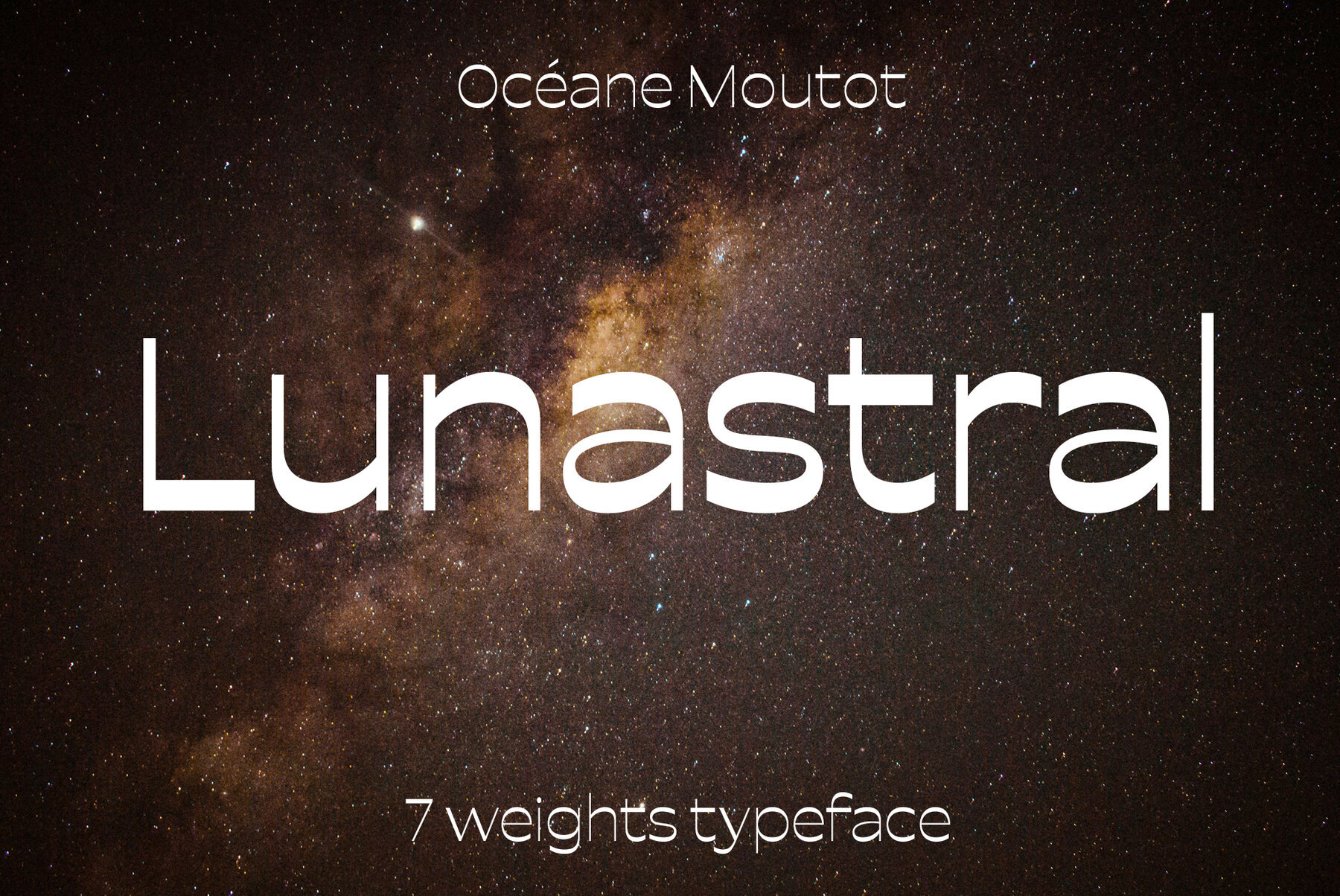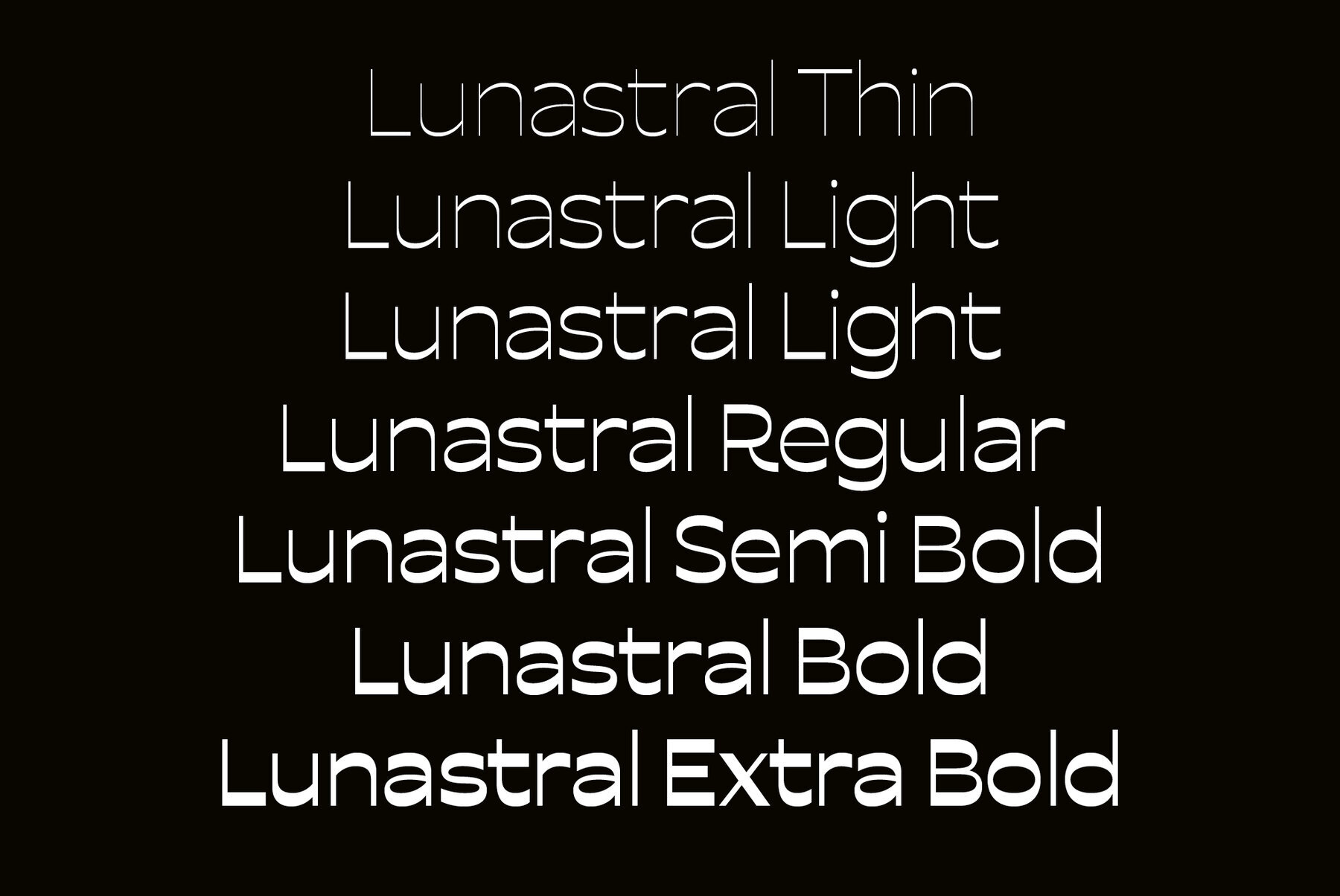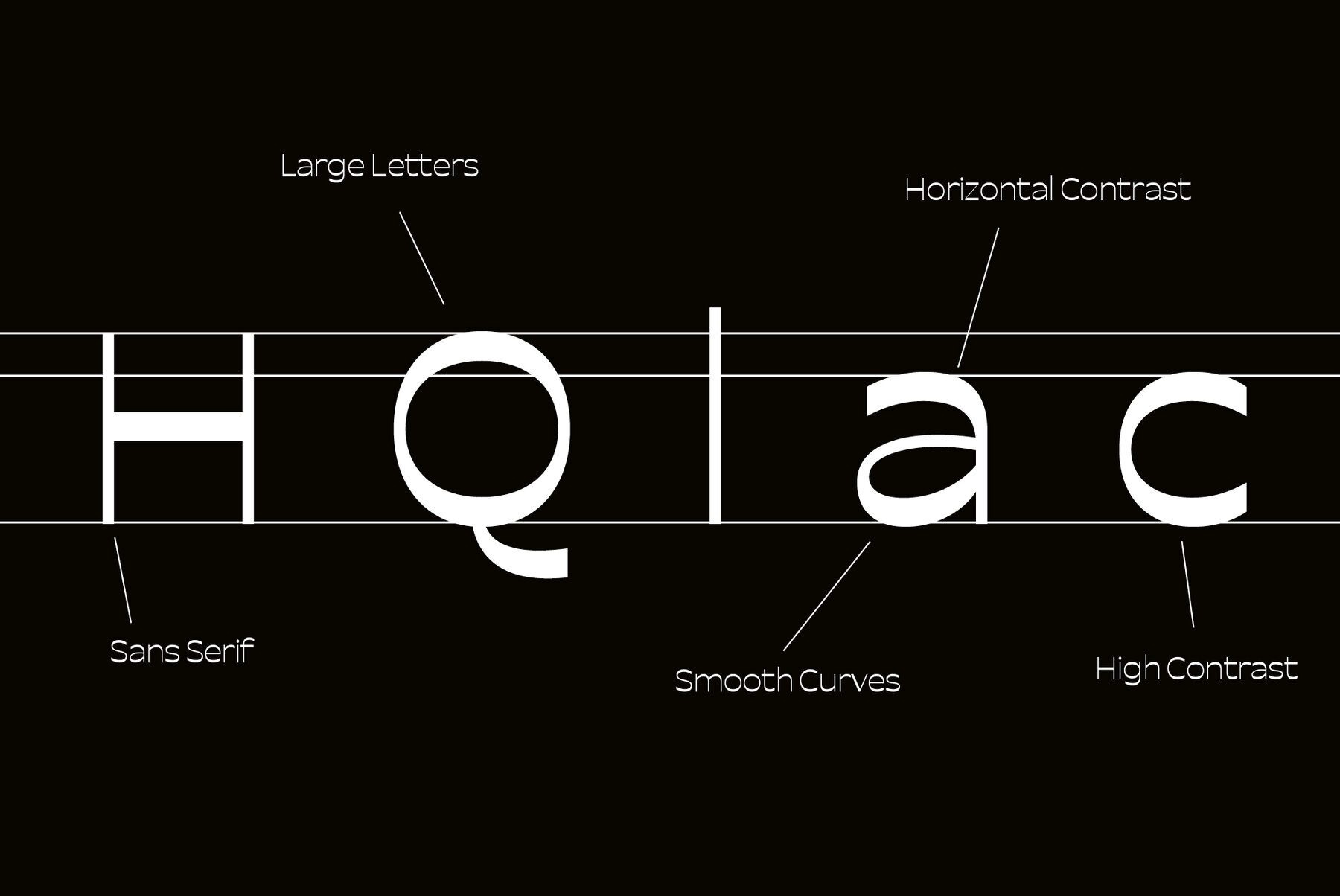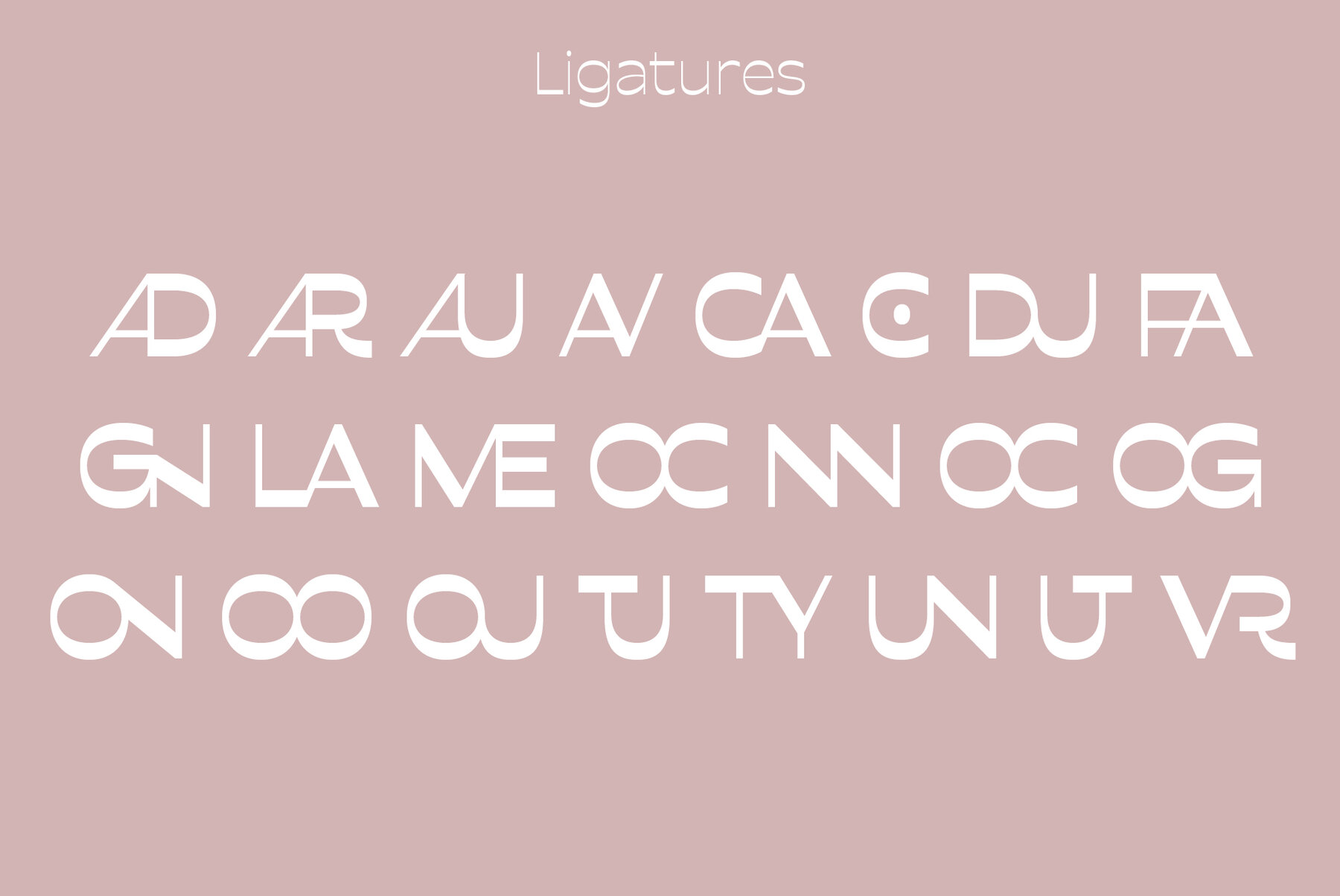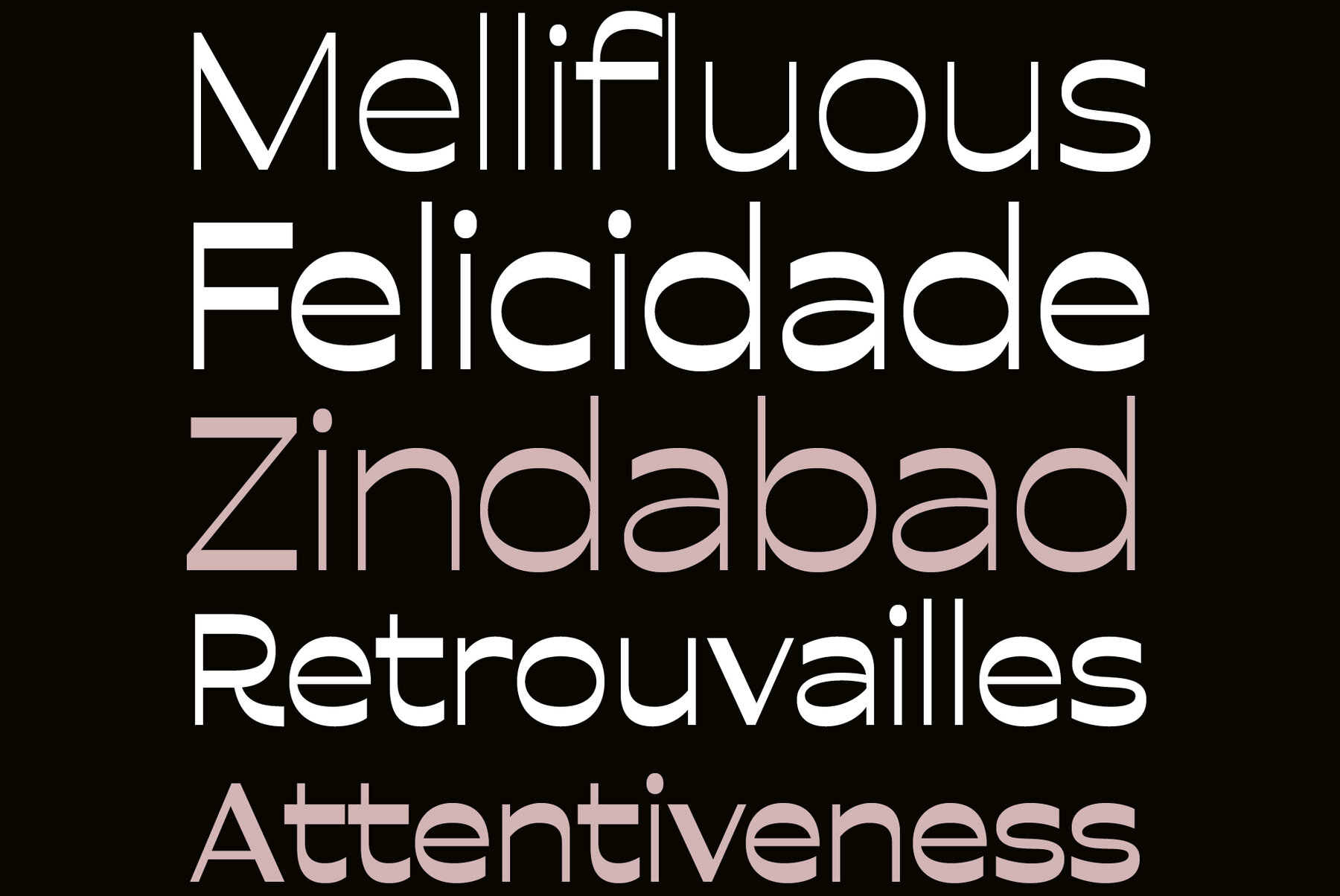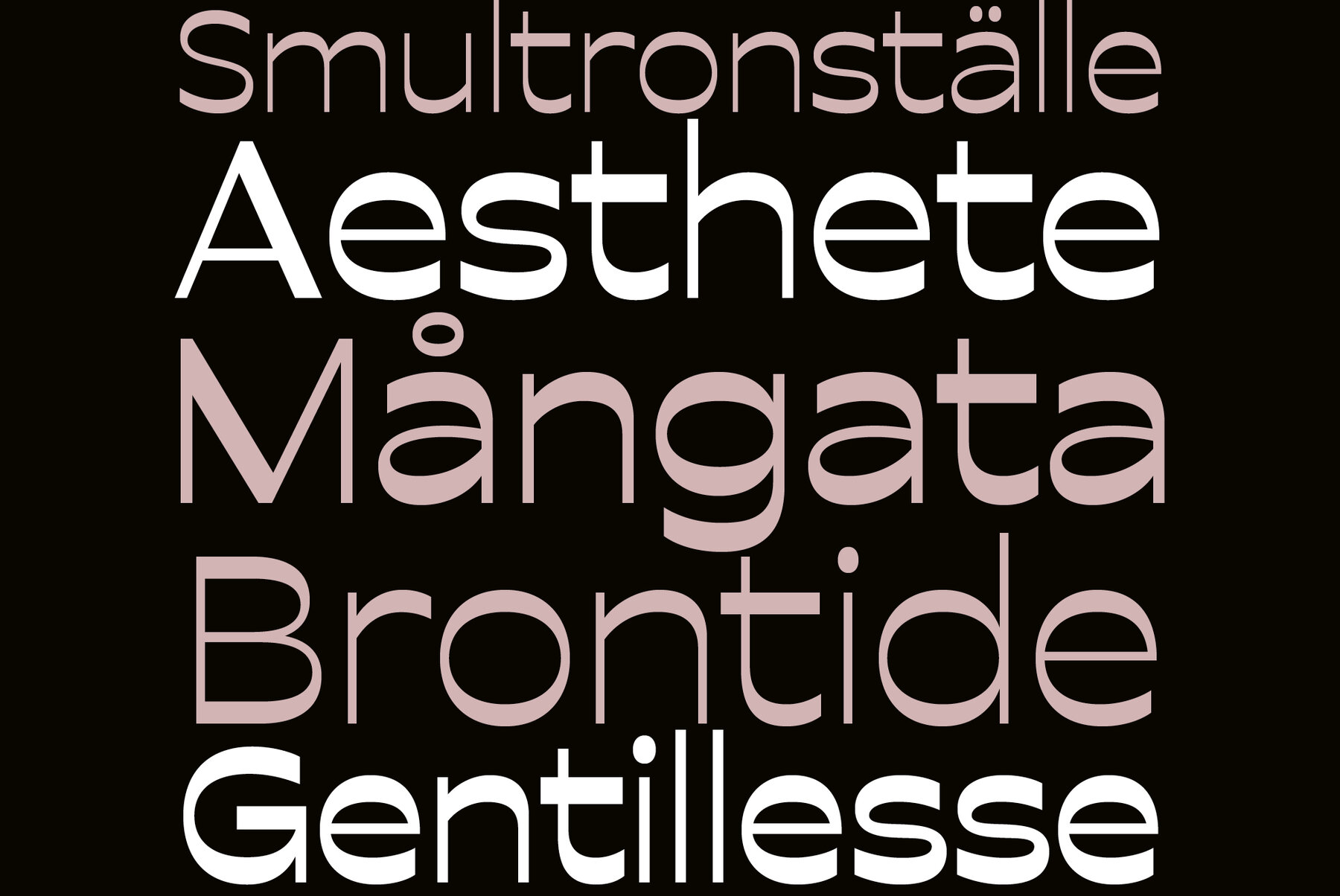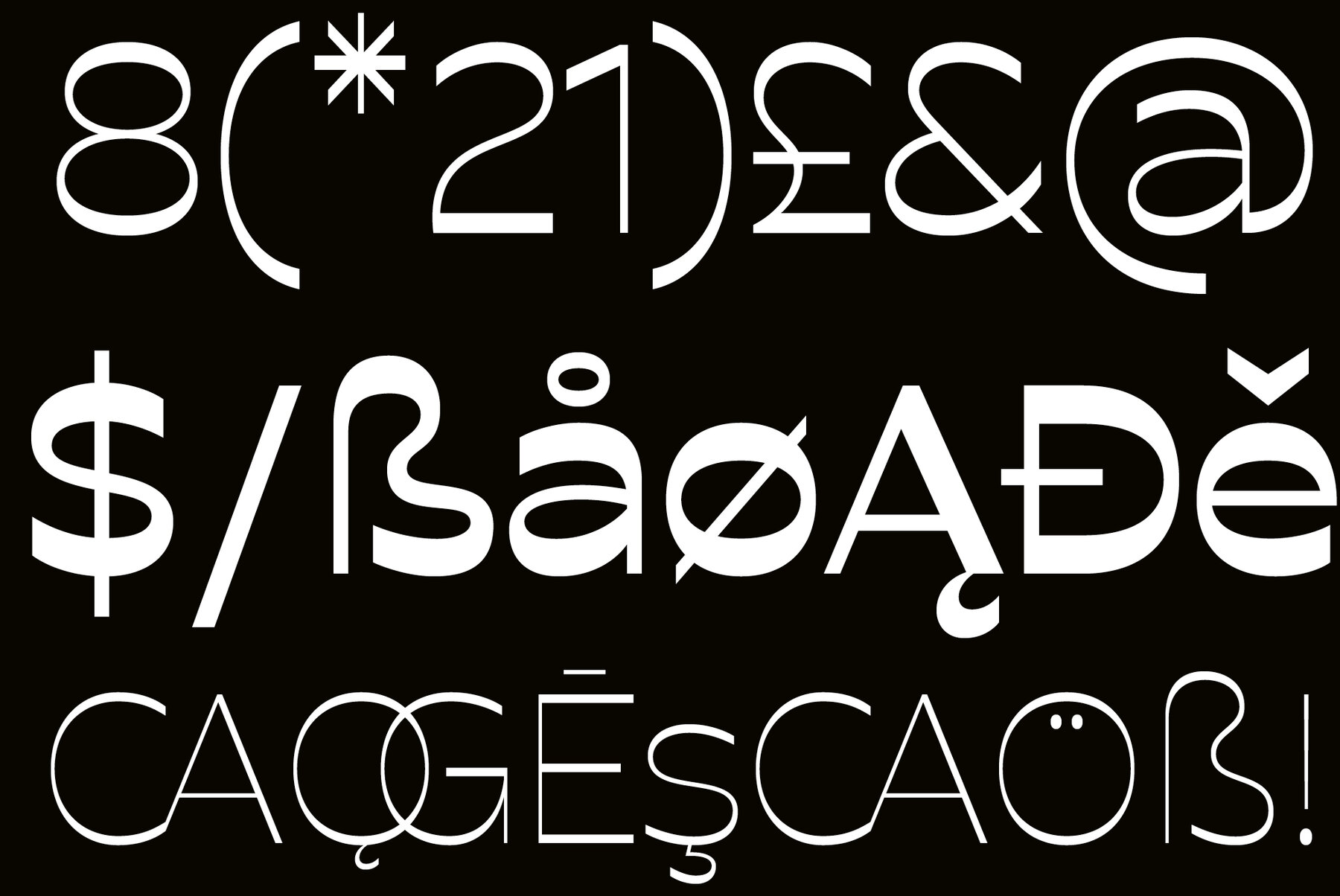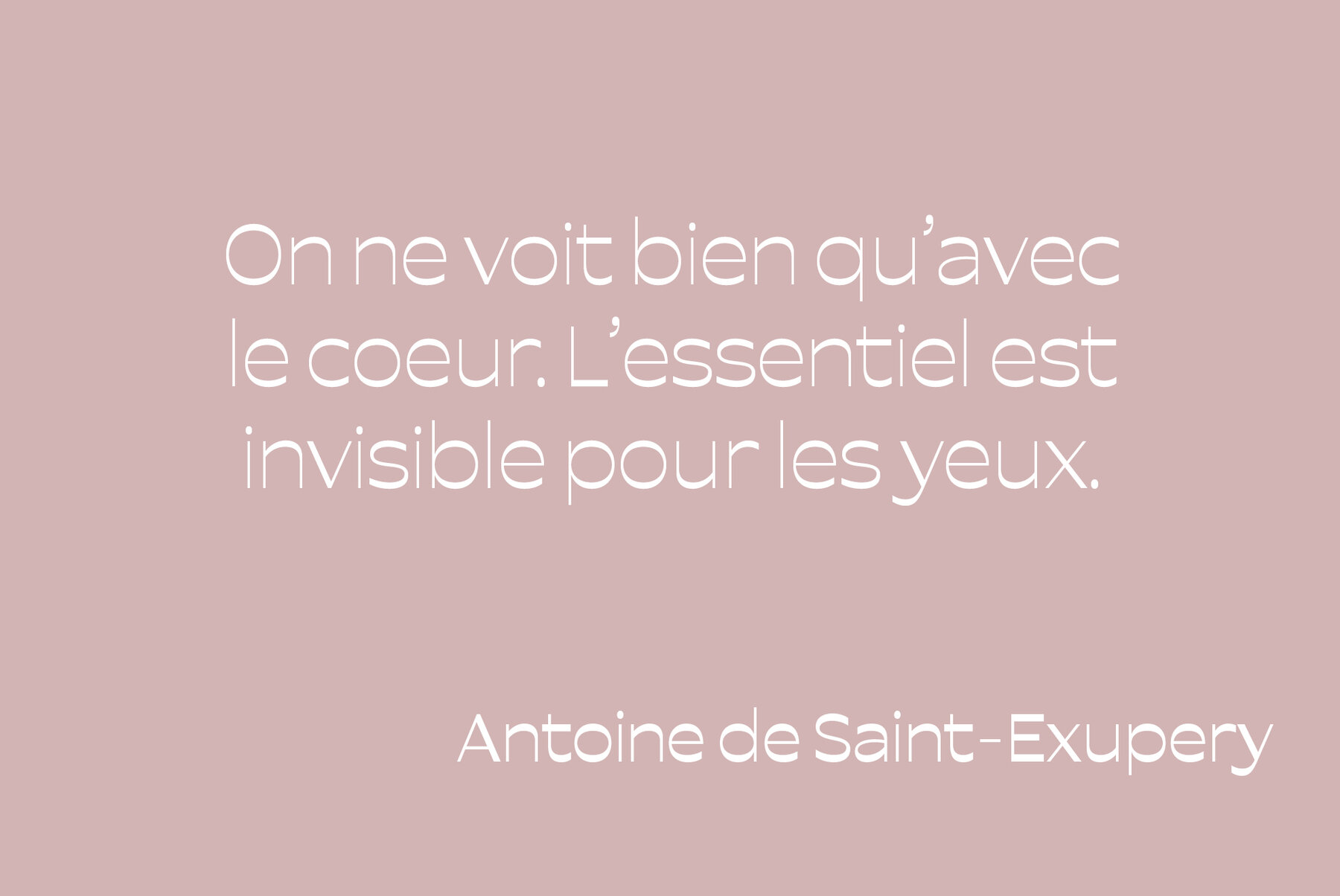
Lunastral Font
Lunastral is a whimsically bold typeface that captivates with its horizontal contrast, sans serif structure, and delightful curves. Its large weight commands attention while its smooth curves infuse a sense of playfulness into every character. With its high contrast between thick and thin strokes, Lunastral brings a dynamic energy to any design it graces. Whether it's adorning the titles of magazines, newspapers, or creating captivating logotypes, Lunastral offers versatility and style. Lunastral is available in 7 styles, from thin to extra black.
Océane is a french graphic and type design since 2016. In 2020, she published her first font, Honesty, a 16-style flared, lapidary or incised sans typeface family that took inspiration from the Trajan column carvings and Berthold Wolpe's Albertus (1938). Two typefaces are currently published.